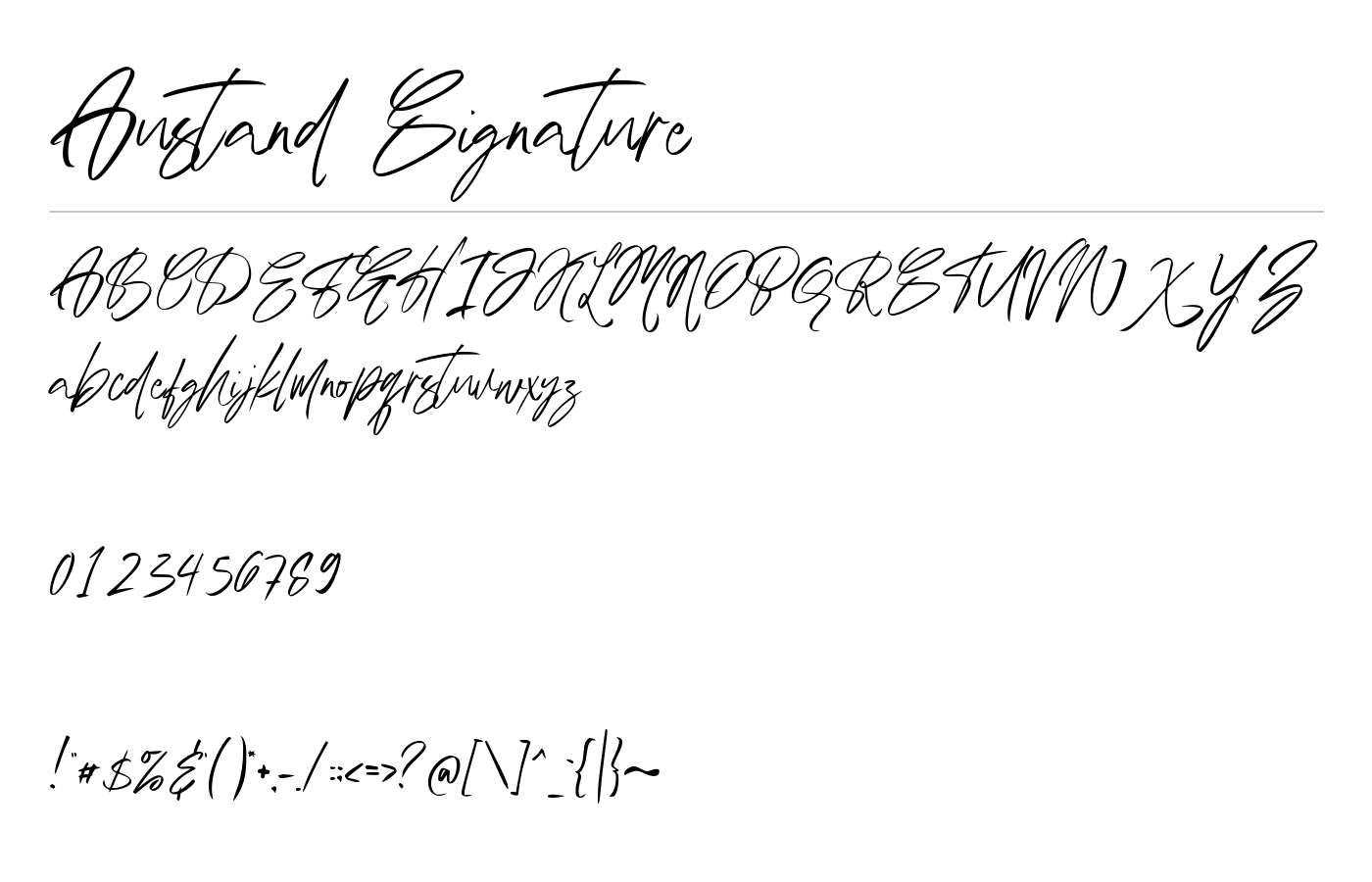
Austand Signature Font is an elegant, flowing script font that mimics natural handwriting with its slender, slightly erratic strokes. Its thin, calligraphic style gives it a personal and sophisticated feel, making it ideal for branding, invitations, and any design seeking a stylish, intimate touch. This font works best in logos, headlines, and creative projects where a refined, modern signature look is desired.
Austand Signature Font
About Austand Signature Font